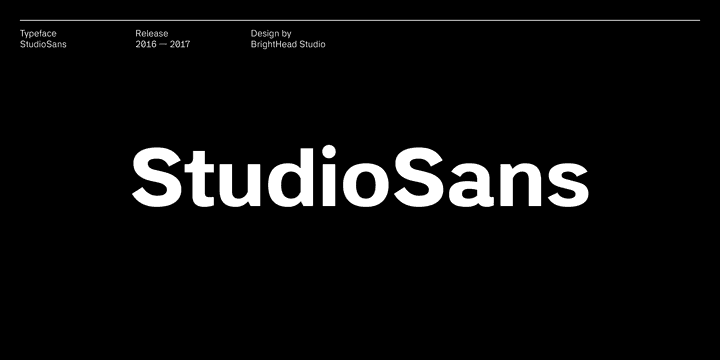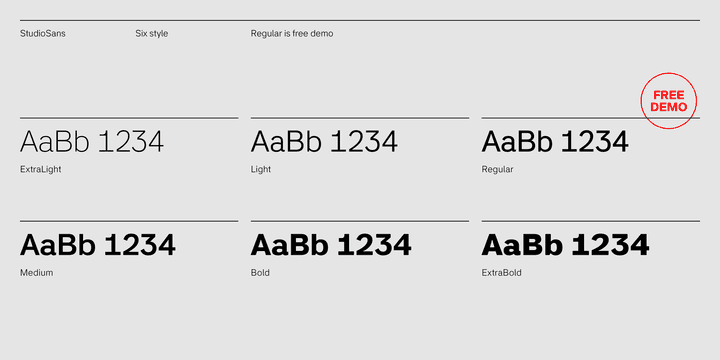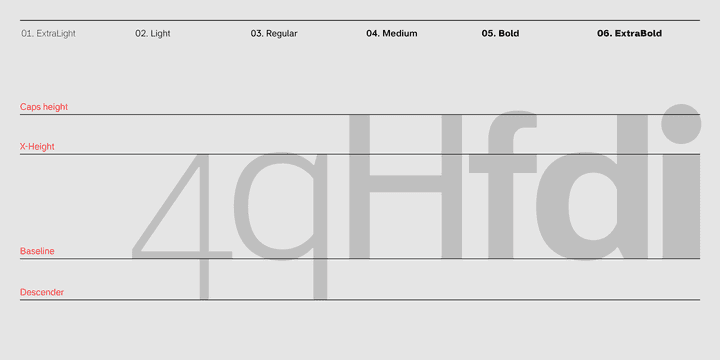
The Studio Sans Font has now been officially released! Created and distributed by BrightHead Studio, this contemporary version of sans serif fonts that are based on the classic Swiss style and typography from the mid 20th century has reached our shores.